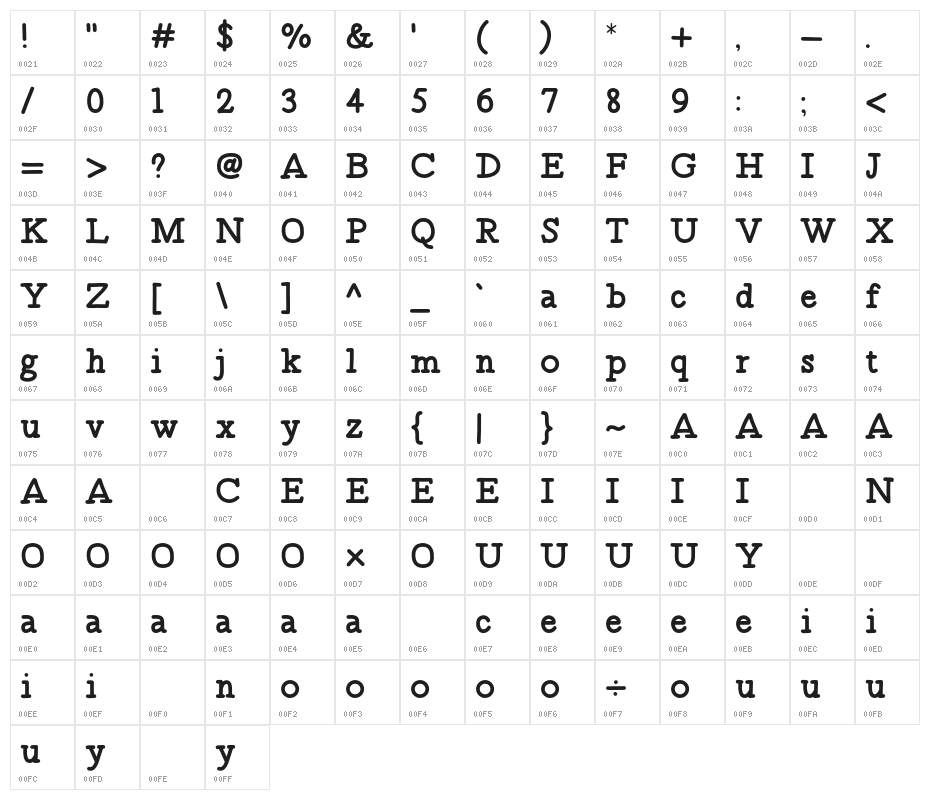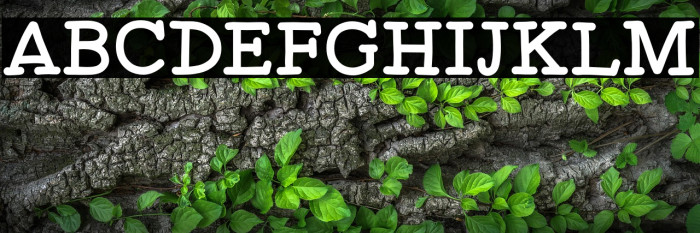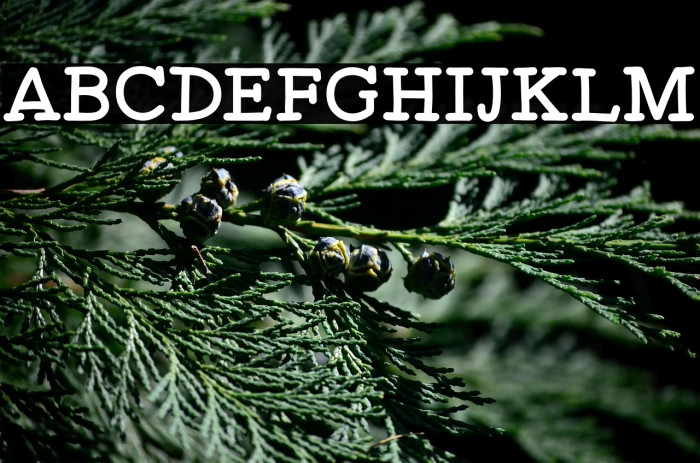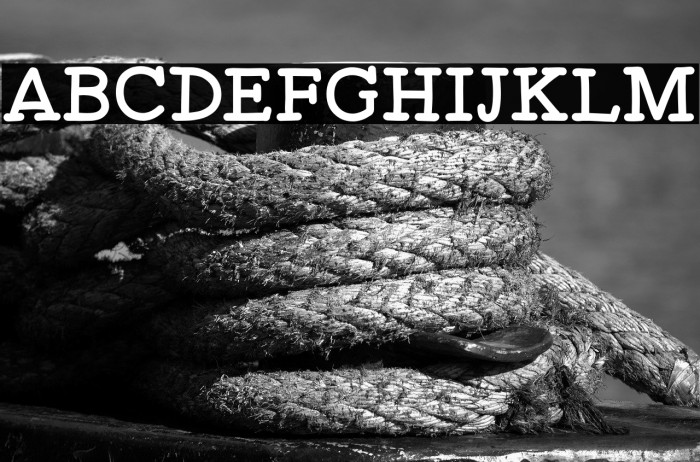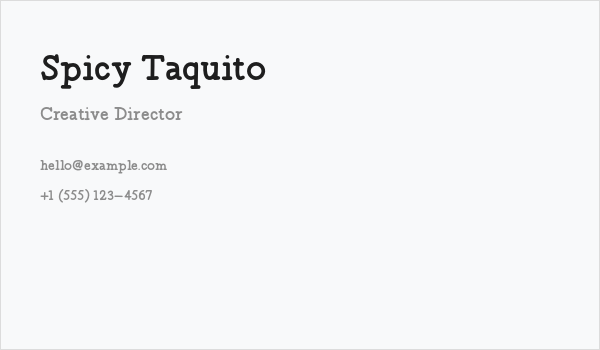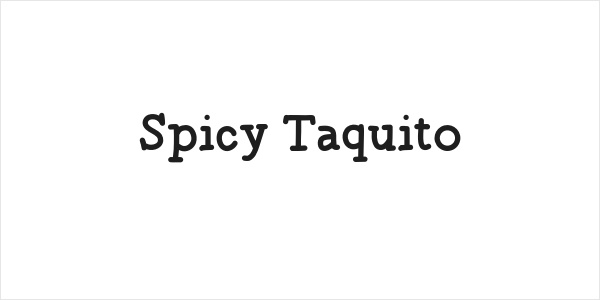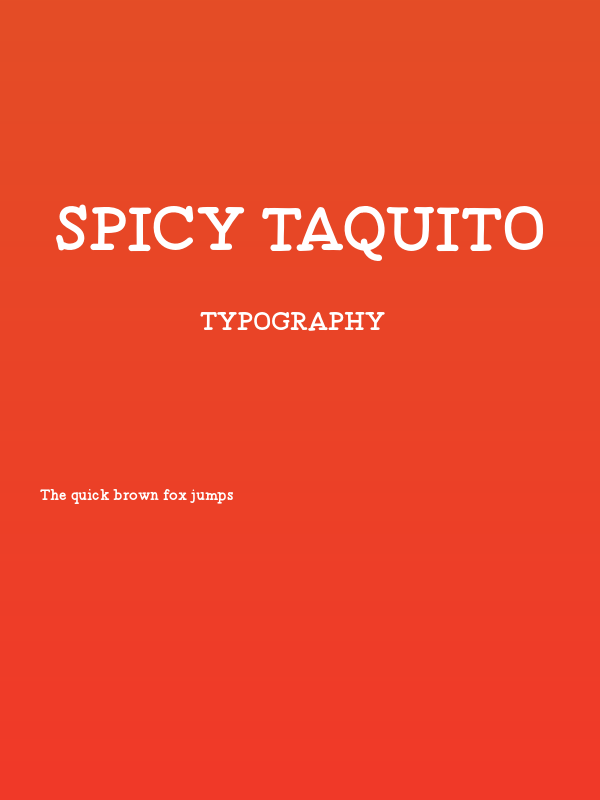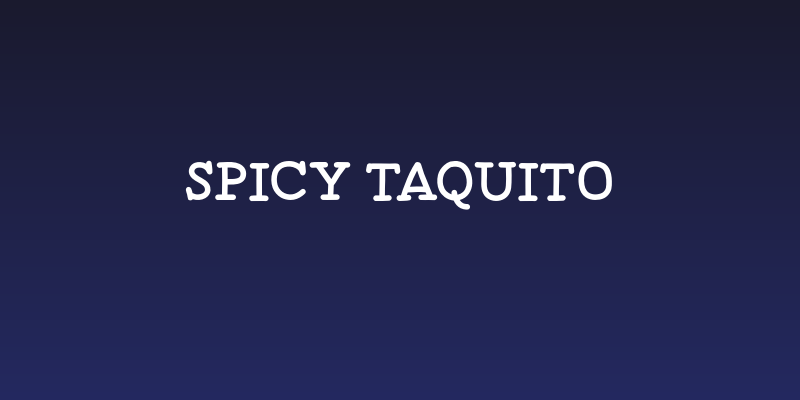
Spicy Taquito Font
Spicy Taquito Description
This font exhibits a playful and bold character with rounded edges and a slightly uneven baseline, giving it a hand-crafted appearance. The uppercase letters are robust and prominent, while the lowercase letters maintain a consistent style with a touch of whimsy. The numerals are clear and legible, matching the overall boldness of the alphabet. Special characters are well-integrated, maintaining the font's cohesive look. The font's style is reminiscent of vintage signage or playful branding, making it suitable for projects that require a friendly and approachable aesthetic.
| Overall Style | Vintage, Playful |
| Use Case | Headlines, Logos, Packaging |
| Proposed Projects | Ideal for branding, packaging, children's books, and playful advertising. |